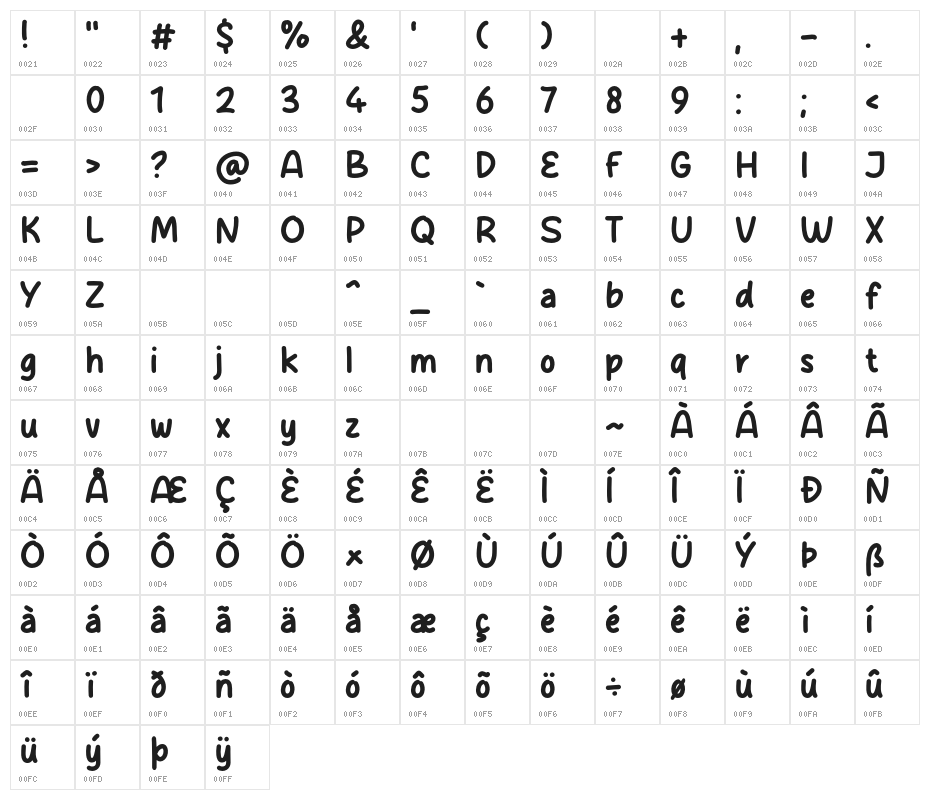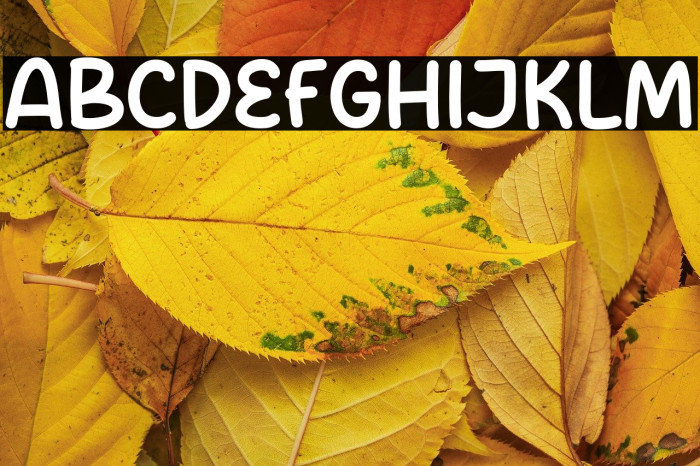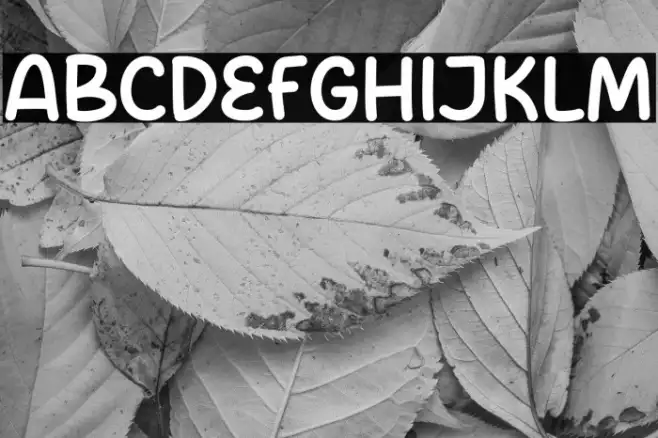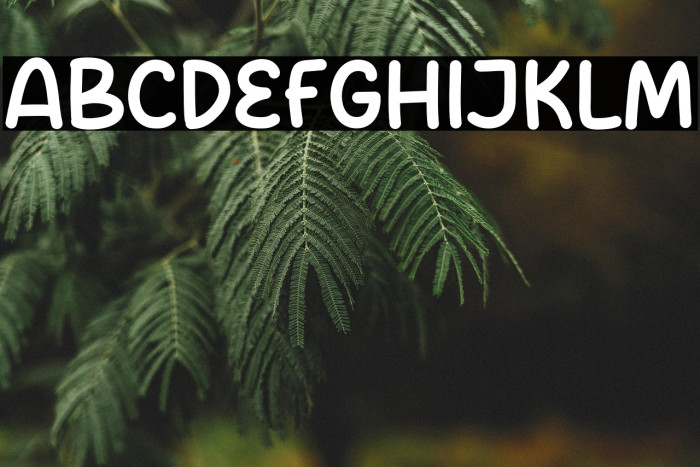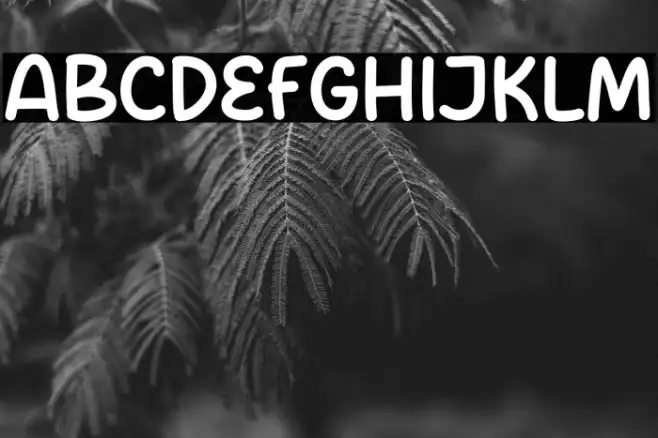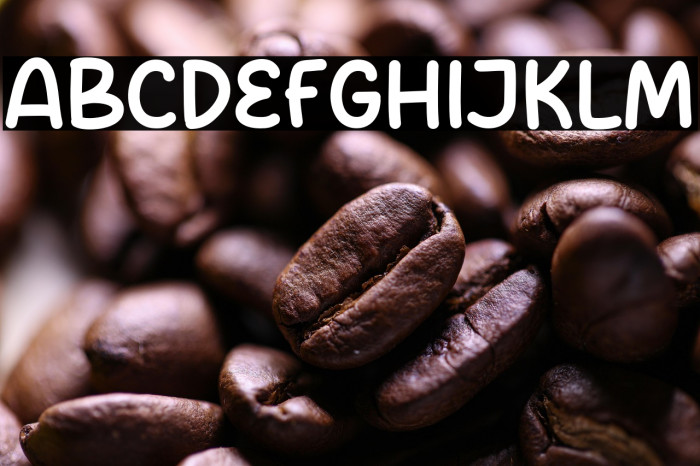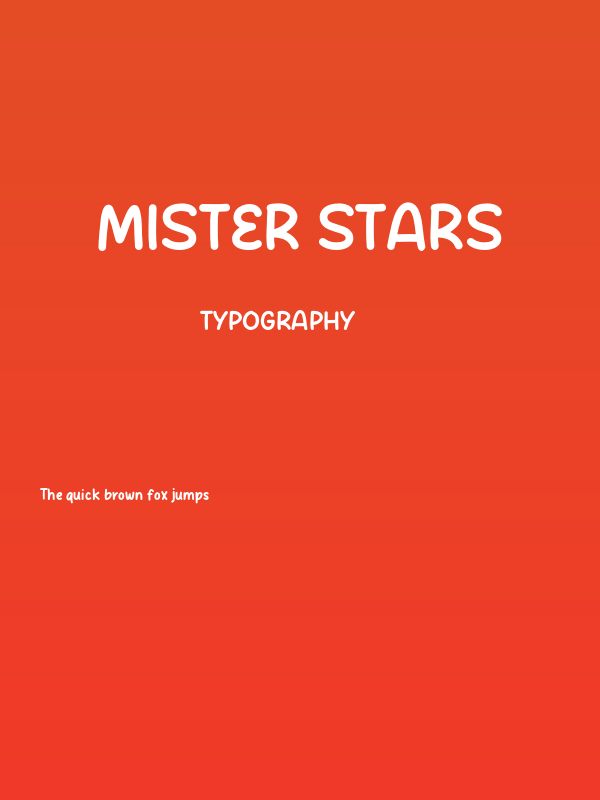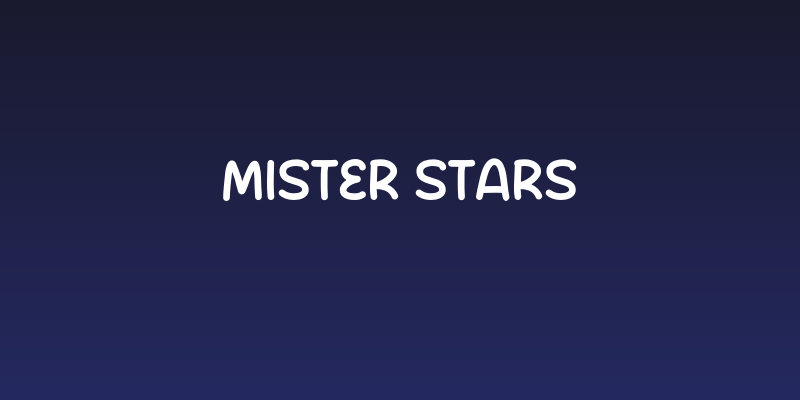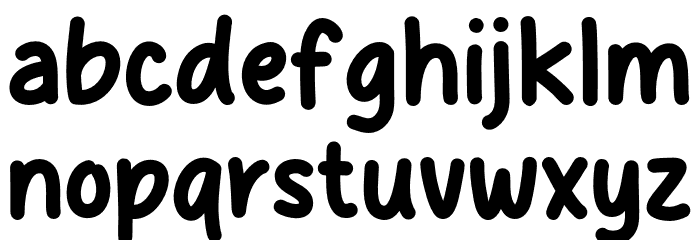
Mister Stars Font
Mister Stars Description
This playful and rounded font exudes a friendly and approachable vibe, with its bold and smooth curves. The characters are evenly spaced and maintain a consistent thickness, giving it a cohesive and harmonious appearance. The uppercase and lowercase letters are well-balanced, and the numerals are clear and easily distinguishable. The special characters are designed to match the overall style, making it versatile for various applications. Its simplicity and readability make it suitable for both digital and print media, appealing to a wide audience.
| Proposed Projects | Ideal for children's books, playful branding, casual invitations, and social media graphics. |